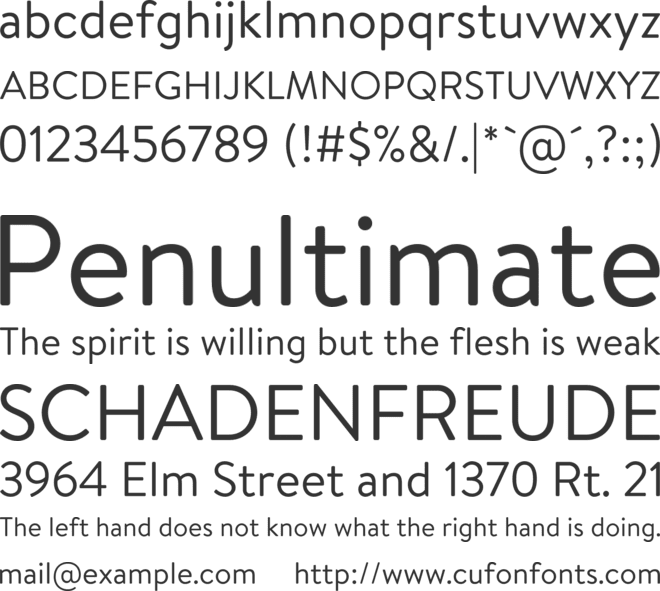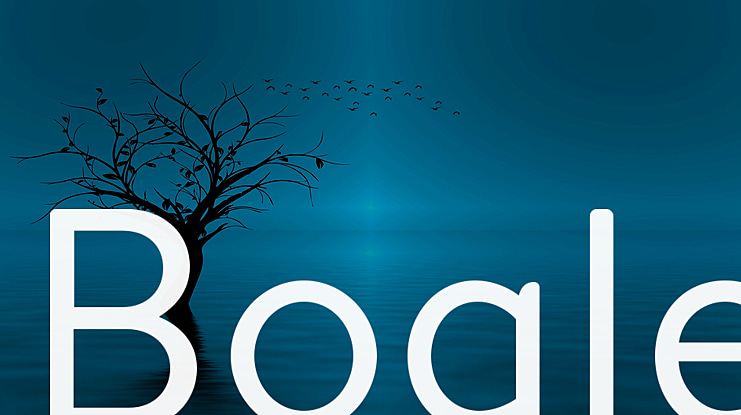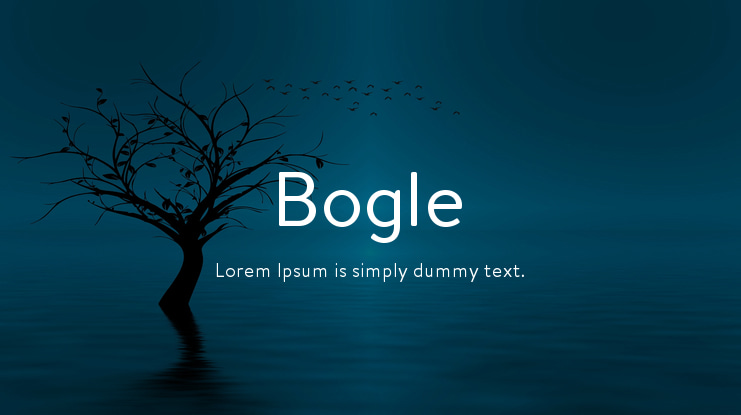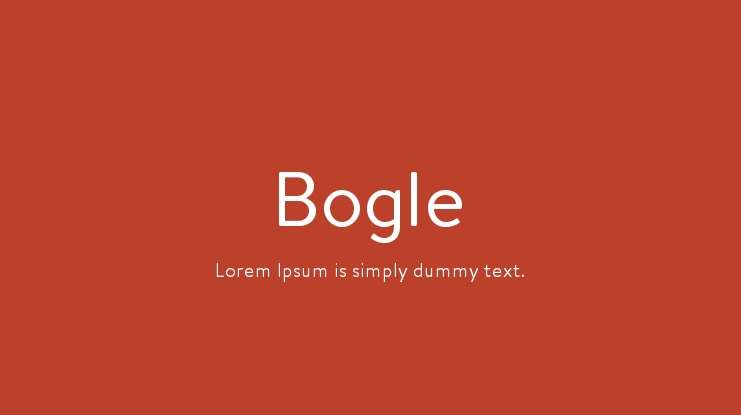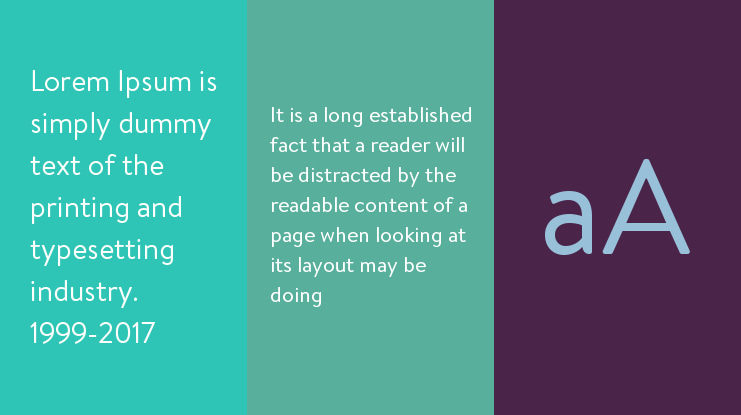
Bogle Font Family
Hannes von Doehren
Bogle is a sans-serif typeface created by HvD Fonts for Walmart. The font is a slightly modified version of the typeface Brandon Text. The name of the font originated from Walmart founder Sam Walton's assistant Bob Bogle, as a gesture of appreciation to the inventor of the name Wal-Mart.